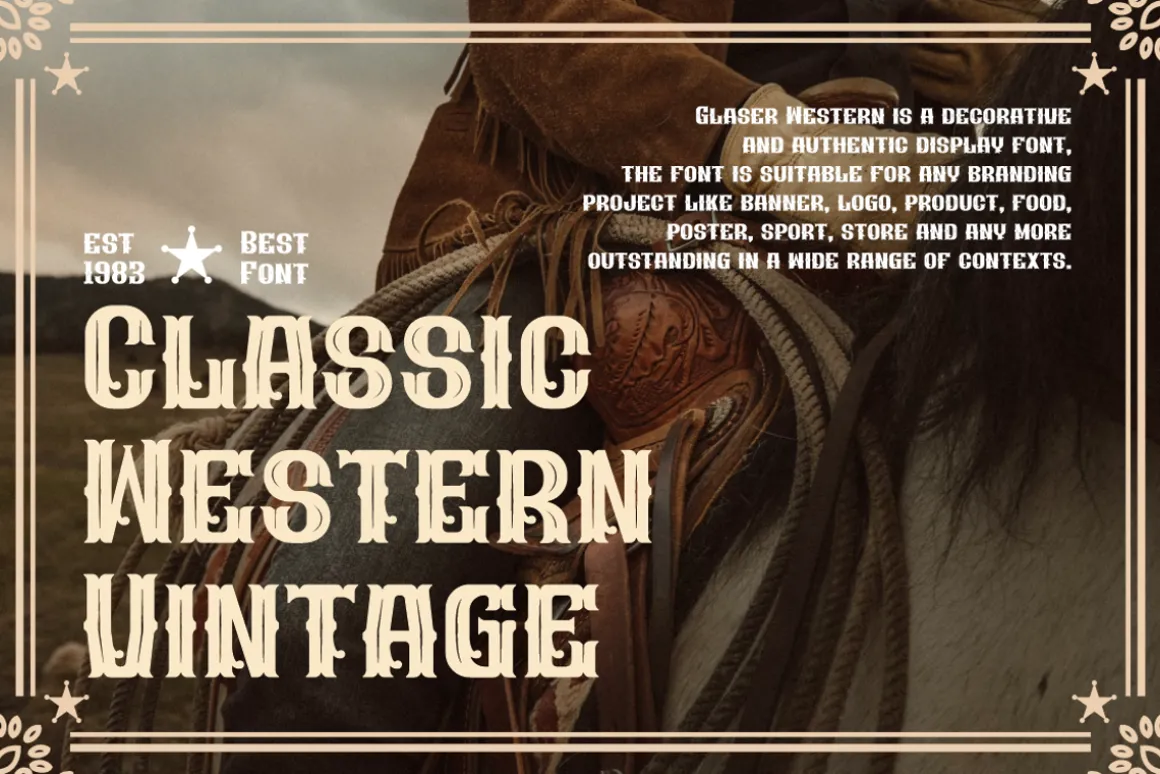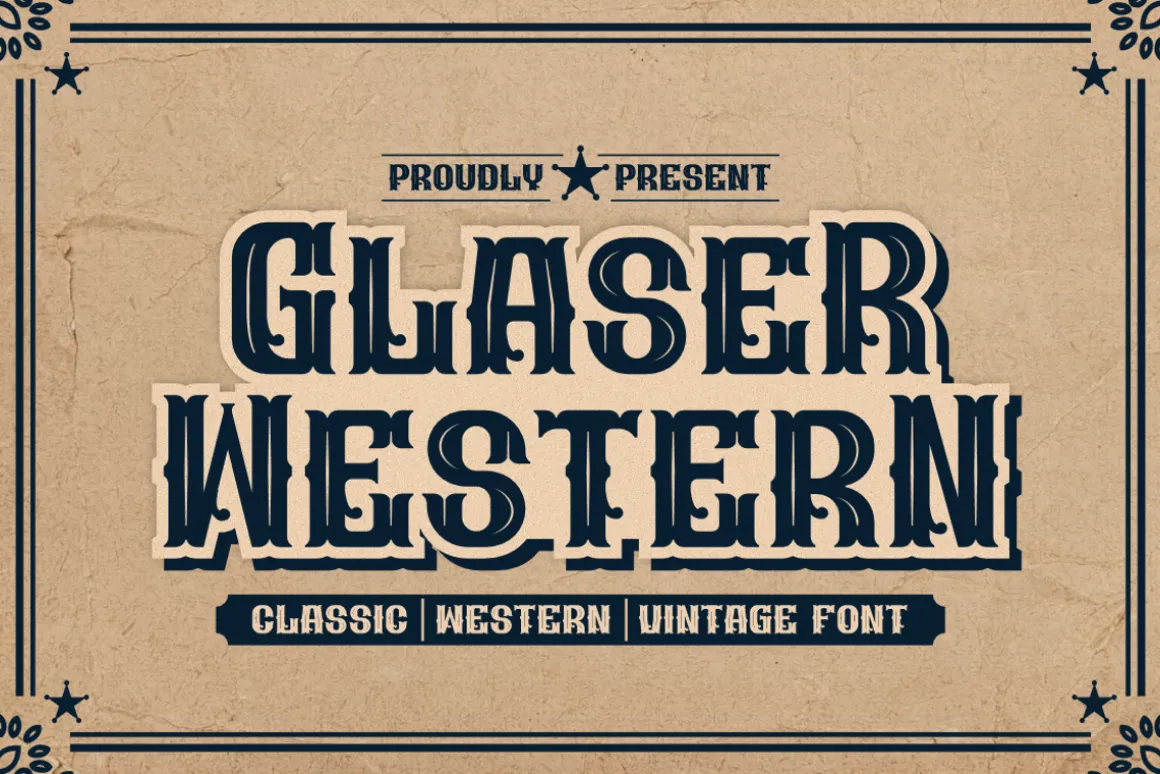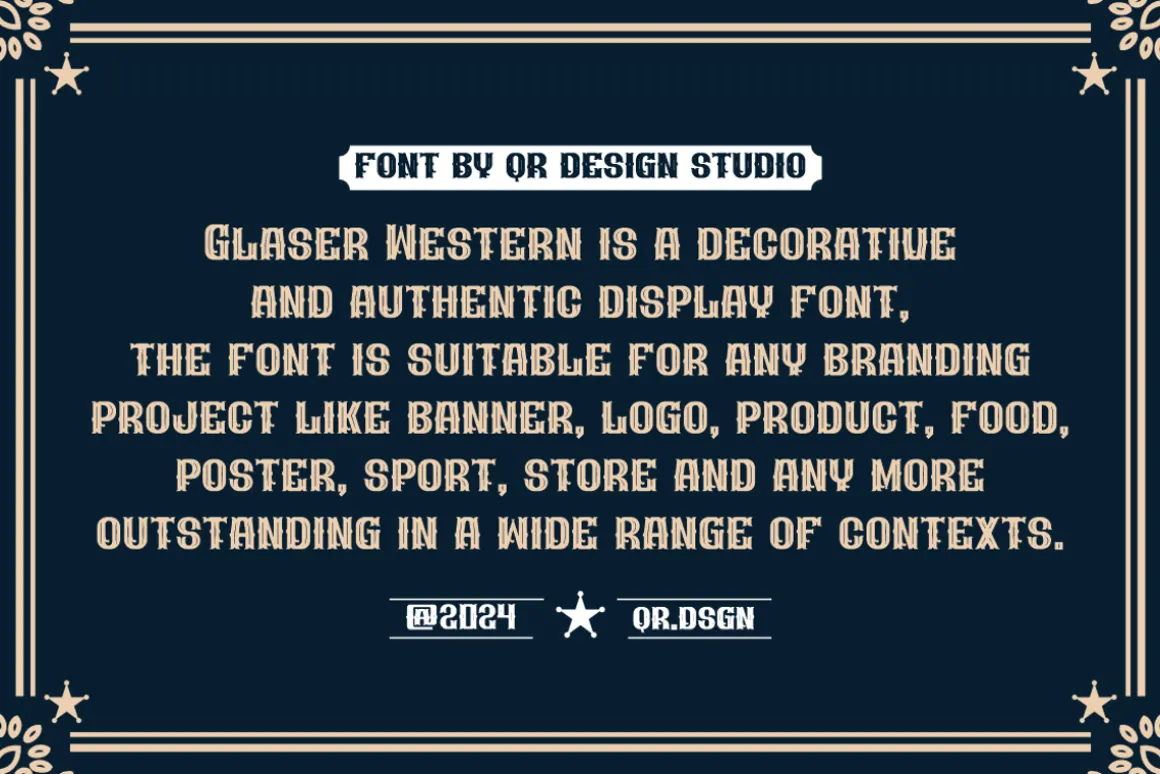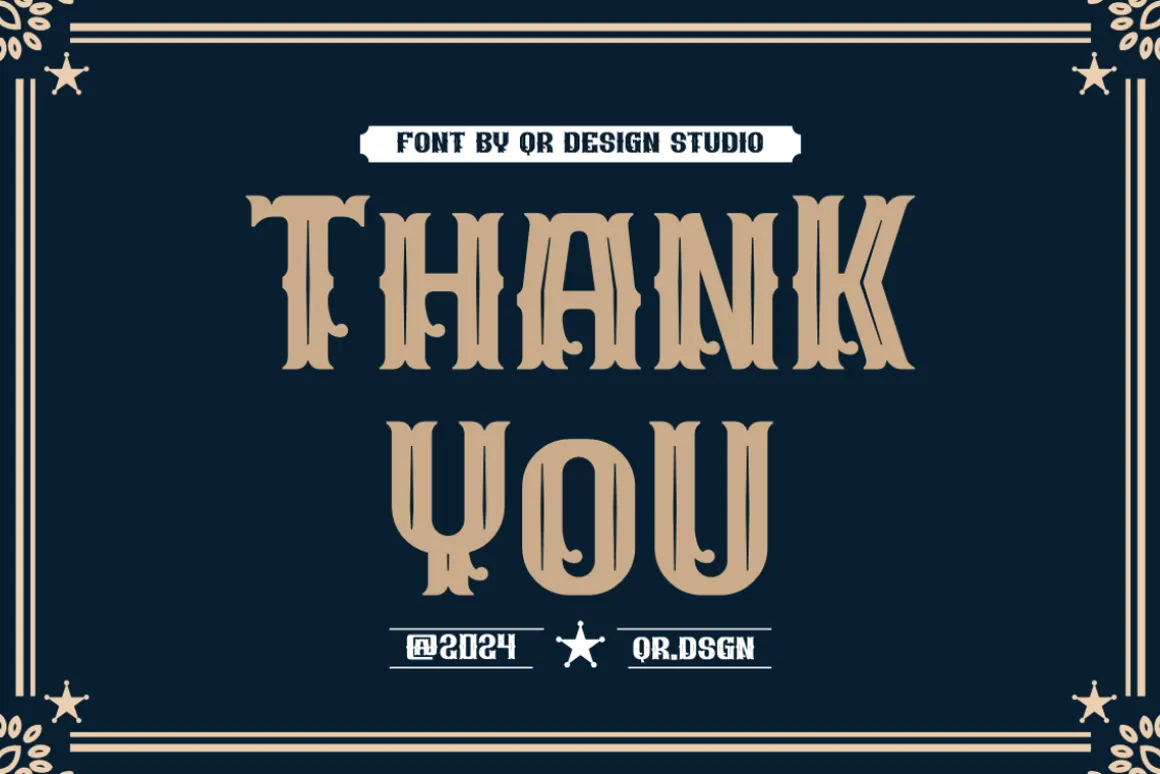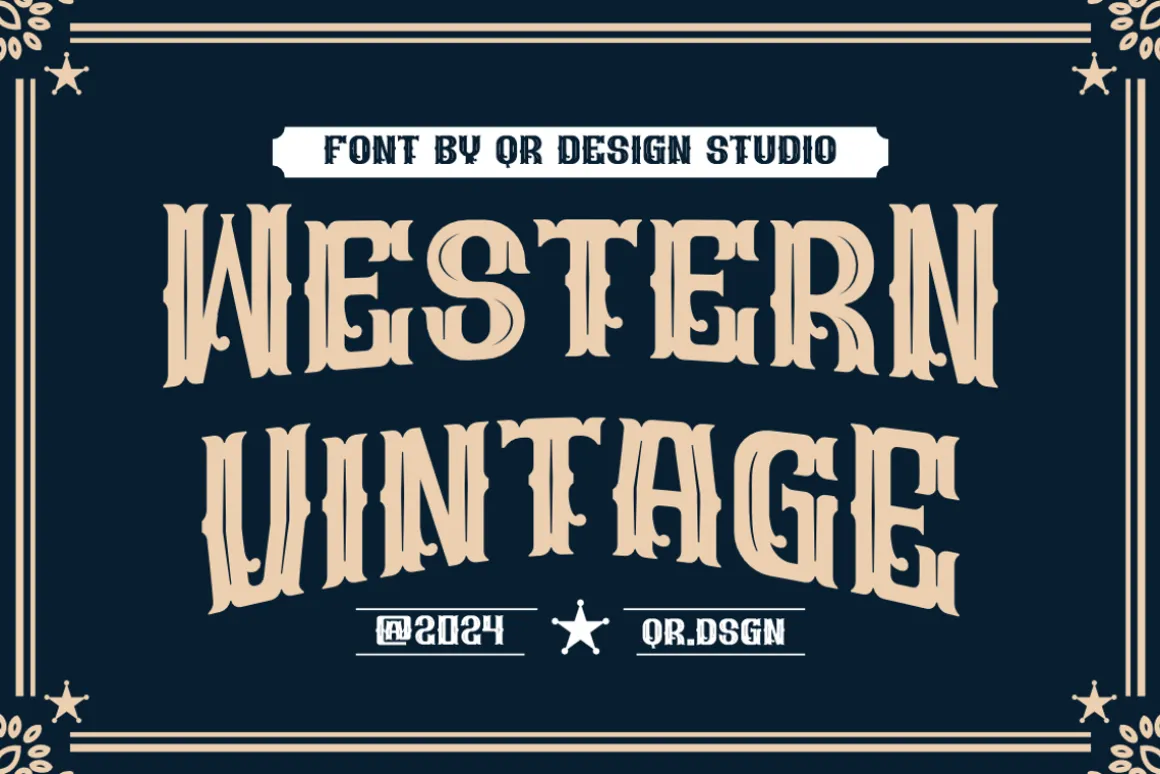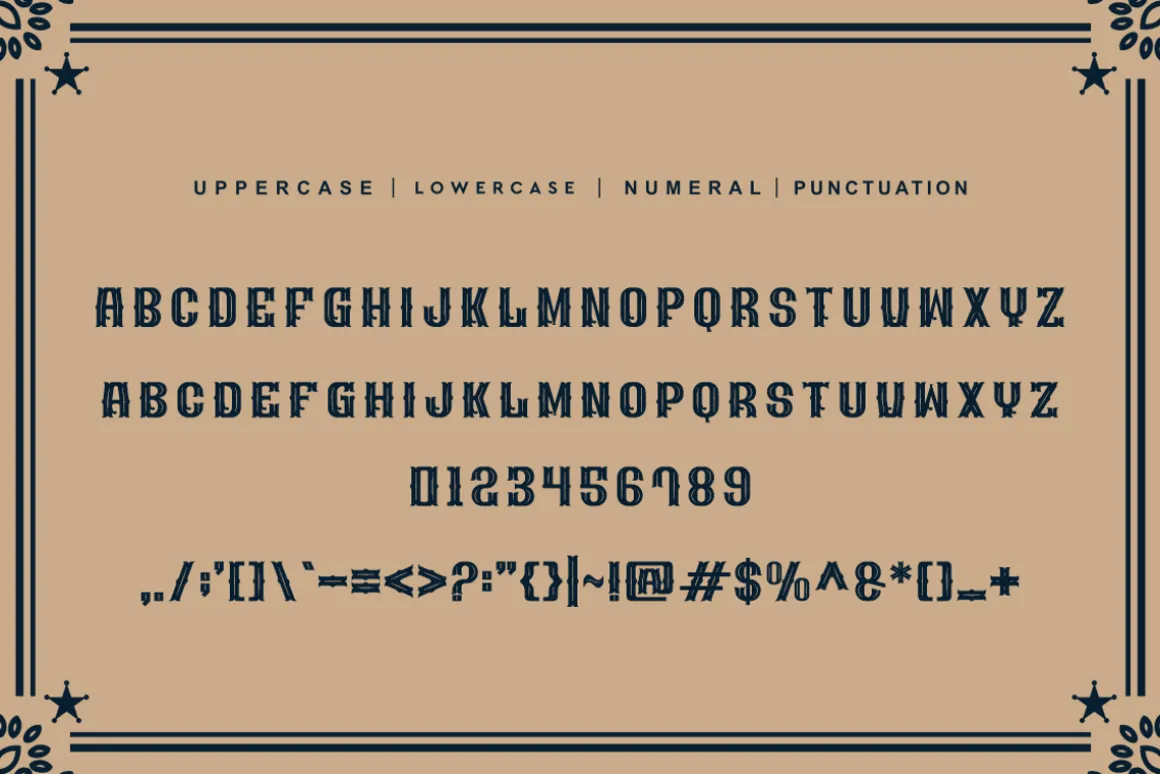
Glaser Western – Vintage & Retro Typeface Font is a bold and authentic display font.The font is suitable for any branding project like poster, logo, sport, and many more.Outstanding in a wide range of contexts.